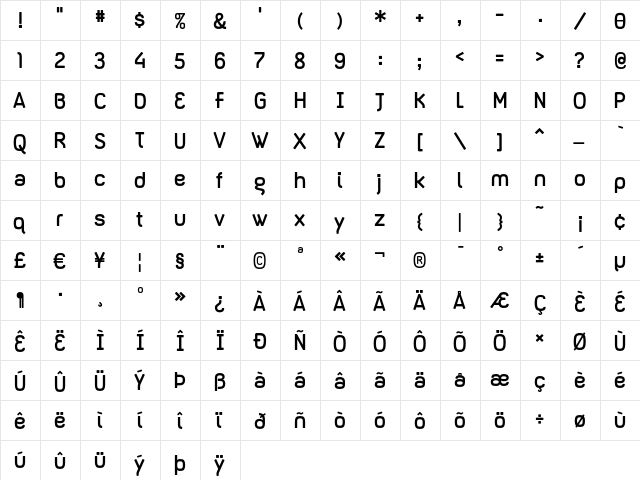
Dispose Bold
| Foundry | Lee Fasciani |
| Designer | Lee Fasciani |
Design Context for Dispose Typeface
Dispose offers clean, dependable letterforms without strong stylistic allegiance, making it a practical choice for designers who need flexibility. The heavy weight commands attention and anchors typographic hierarchies.